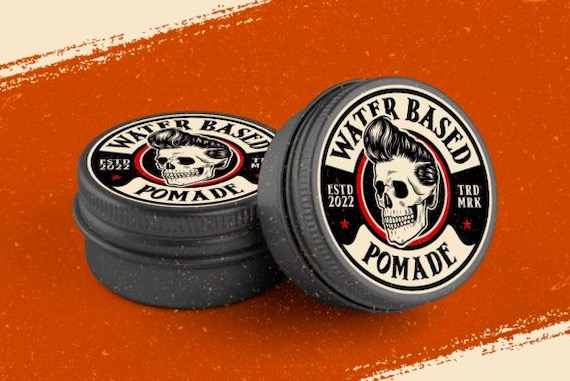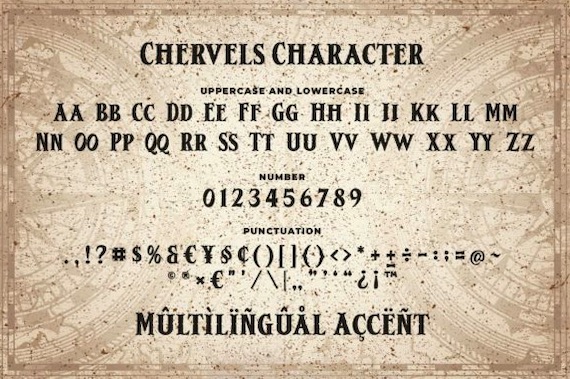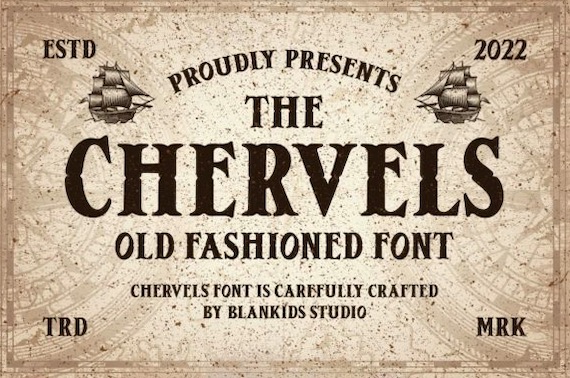
Chervels is a classy and delicate old fashioned display font that was created and shared by Blankids Studio. It’s also inspired by classic funny style typography. This font is perfect for a design that makes it more attractive and playful. made with a very good level of aesthetics making this font suitable for book covers, posters, packaging, merchandise, logotype, and much more.
Chervels Vintage Display Font